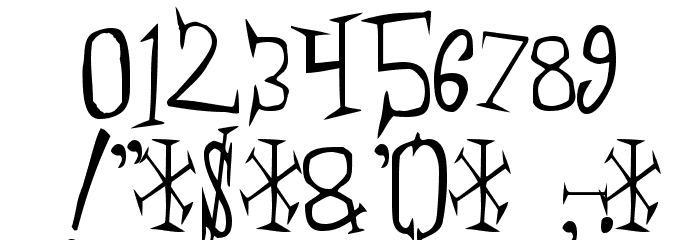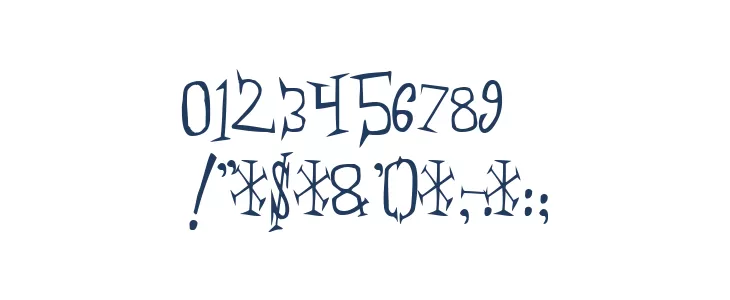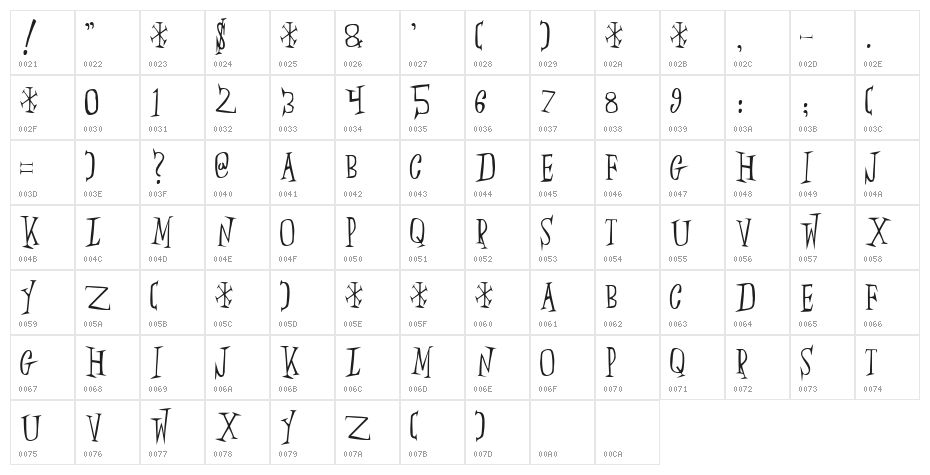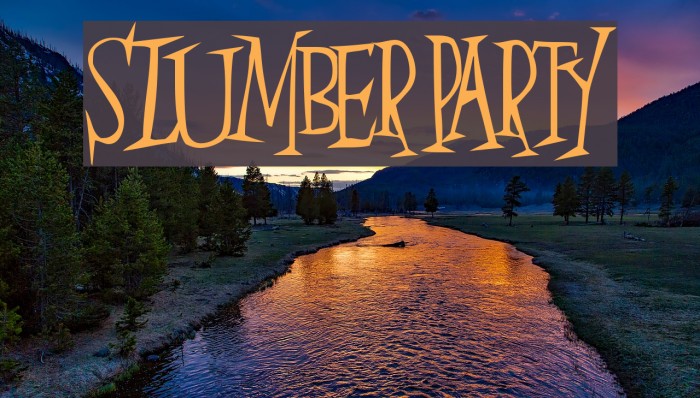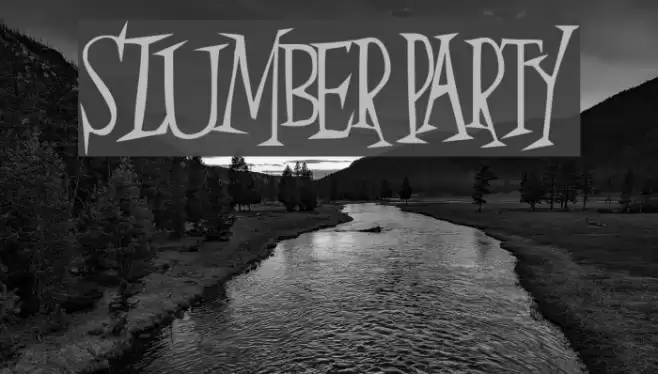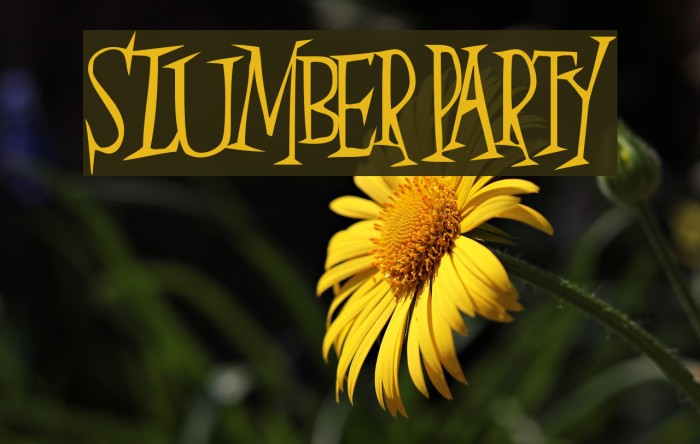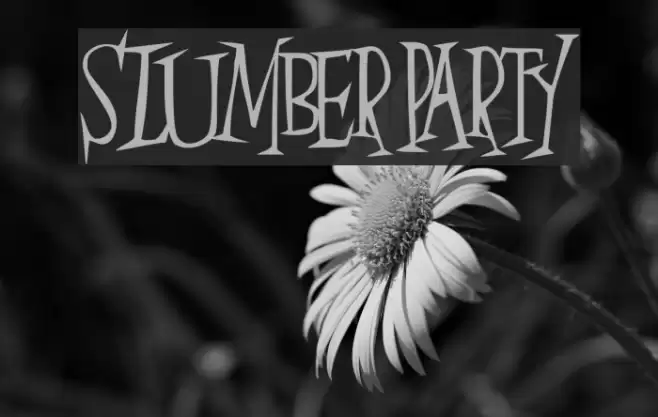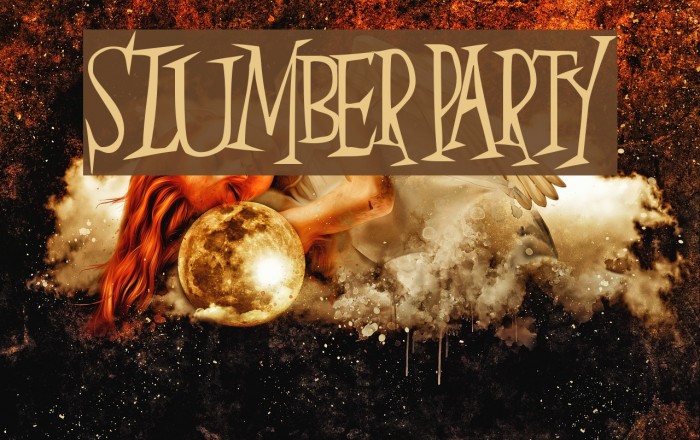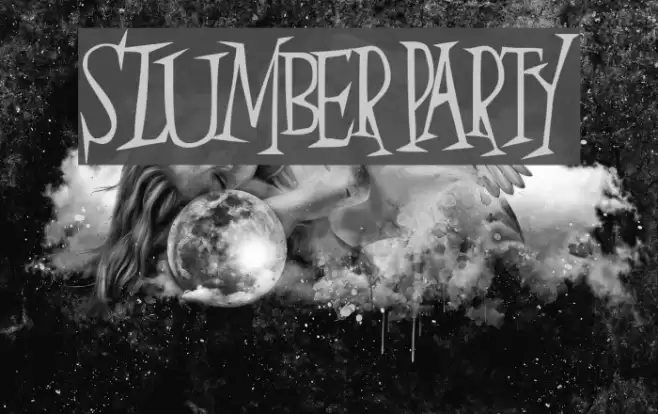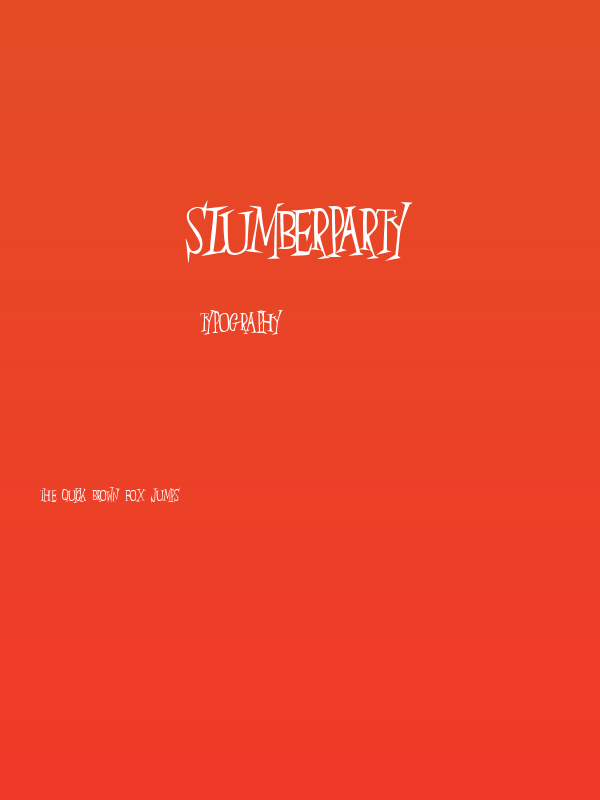
SlumberParty Font
SlumberParty Description
This font features a playful and whimsical design, characterized by its exaggerated curves and sharp angles. The letters have a hand-drawn quality, giving them a unique and artistic flair. The uppercase and lowercase letters maintain a consistent style, with a slightly irregular baseline that adds to the casual and fun aesthetic. The numbers and special characters follow the same design principles, ensuring a cohesive look across all glyphs. This font's distinct personality makes it stand out, offering a creative and dynamic option for various design projects.
| Overall Style | Whimsical |
| Proposed Projects | Ideal for children's book covers, playful branding, event invitations, and creative posters. |